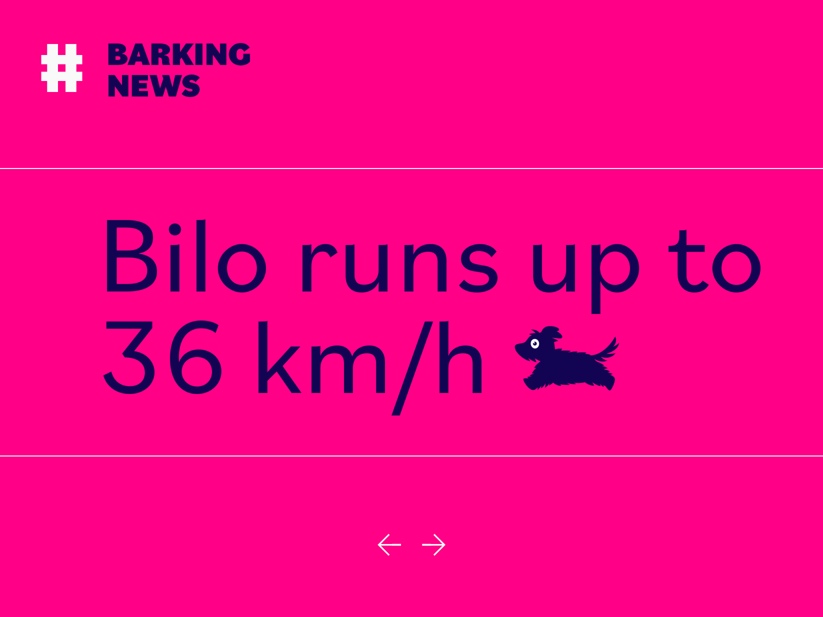
Bilo Font
Bilo Font is perfect for modern tech startups, clean corporate branding, minimalist web design, contemporary mobile applications, streamlined user interfaces, progressive digital platforms, sleek product packaging, innovative business communications, efficient system documentation, and simplified visual identity projects.
What makes Bilo Font so exciting is its exceptional embodiment of design efficiency and functional clarity that delivers maximum communication impact through precisely engineered minimalism and systematic typographic optimization. This intelligently crafted typeface features clean letterforms with optimal proportions and systematically refined character relationships that immediately convey efficiency, reliability, and the purposeful simplicity of contemporary design thinking. The font's streamlined construction and functional aesthetic create an instant sense of technological competence and design sophistication, making it ideal for projects that need to communicate operational excellence, user-centered design, and the transformative power of efficient communication to audiences seeking effective solutions and meaningful technological experiences.
The Bilo Font family typically includes multiple systematic weights and functional styles, often featuring thin through bold variations along with corresponding italic versions and condensed alternatives. Efficiency-focused font families frequently offer extensive character sets including advanced OpenType features, technical symbols, and comprehensive language support that ensure optimal typography across diverse operational communication requirements and international business applications.
The systematic nature of Bilo Font makes it particularly effective for targeting demographics that prioritize functionality and efficiency in their personal and professional technology choices. UX designers and operational managers will find this font especially valuable for materials that must establish immediate functional credibility and connect with audiences seeking authentic efficiency solutions and meaningful productivity improvements.
What sets Bilo Font apart is its ability to convey systematic efficiency while maintaining the human accessibility essential for effective user communication. This balanced characteristic makes it suitable for both technical applications requiring operational precision and consumer-facing contexts where projecting competence and maintaining user-friendly appeal must work together seamlessly.
Professional designers recognize that Bilo Font brings invaluable operational credibility to projects across industries including technology, business efficiency, system design, and operational consulting. Its systematic character and functional appeal make it essential for organizations whose mission centers on improving operational efficiency, advancing user experience design, and creating meaningful connections between systematic thinking and practical problem-solving.
The strategically optimized design of Bilo Font ensures consistent functional messaging across all efficiency-focused communication applications while honoring the fundamental principles of user-centered design and operational excellence.